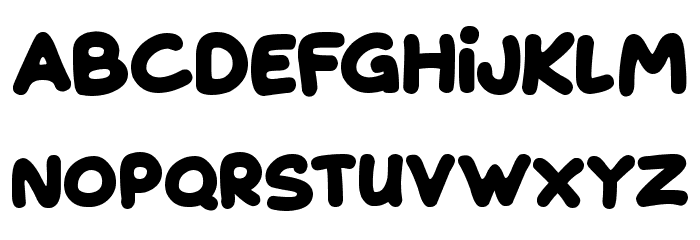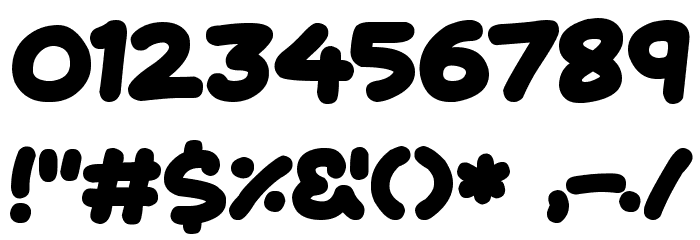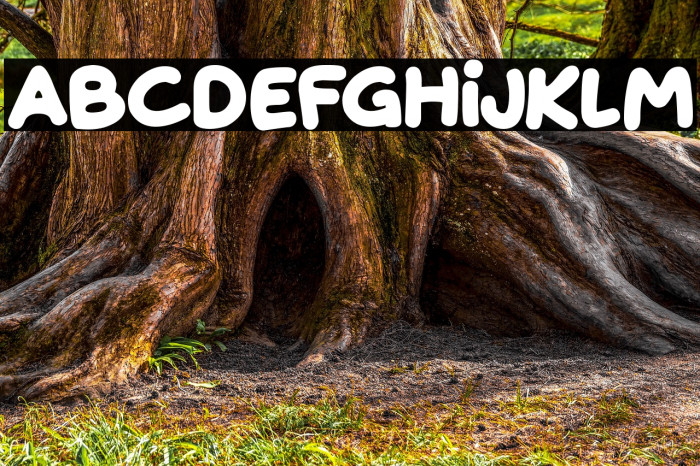
Magical Markers Font
This playful and bold font features rounded, bubbly characters that convey a sense of fun and creativity. The letters are thick and have a consistent stroke width, giving them a cartoonish and approachable appearance. The font is highly legible, with each character distinctly formed, making it suitable for various informal and creative applications. The numbers and special characters maintain the same playful style, ensuring a cohesive look across all text elements. Its unique style makes it stand out, perfect for projects that require a touch of whimsy and personality.
A playful, bold, and rounded font with a cartoonish style.
- Font: Magical Markers
- Proposed Projects: Ideal for children's books, comic strips, playful branding, and creative posters.
- Overall Style: Playful